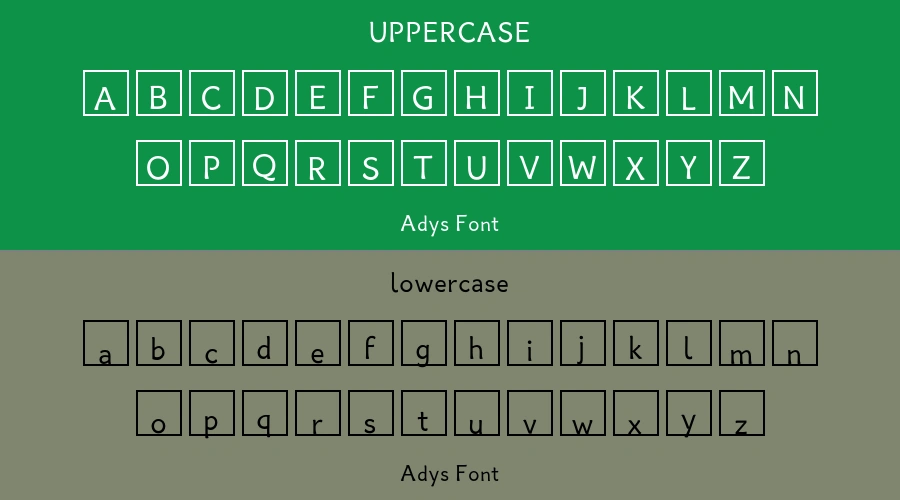
About Adys Font
Adys Font embodies typographic excellence through its masterful combination of elegant proportions and optical balance. Created for technical documentation, this typeface delivers exceptional memorability and aesthetic excellence across all applications. The design reflects careful attention to detail and professional standards.
Advanced capabilities include distinctive rounded apexes and versatile arrow sets, giving designers creative control. When used in identification tags, Adys Font exhibits remarkable digital conversion. The harmonious balance between spur details and user perception sets this typeface apart.